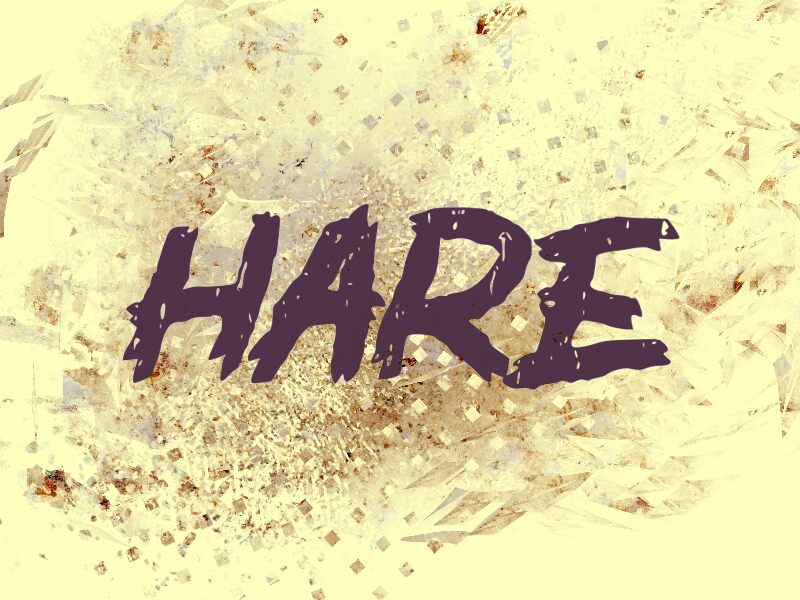
Hare font by wep is a bold script that embodies an artistic and expressive spirit. Its trash style and textured appearance add a grunge element, creating an energetic mood with a contemporary aesthetic. Handcrafted details in this memorable display typeface infuse your projects with innovative sensations and a refreshing visual appeal.
Create authentic projects with Hare font at the core for flyers, social media posts, advertisements, magazine titles, book covers, website headers, logos, packaging designs, or event invitations. This free handwritten font packs everything you need to showcase your ideas clearly and effectively.